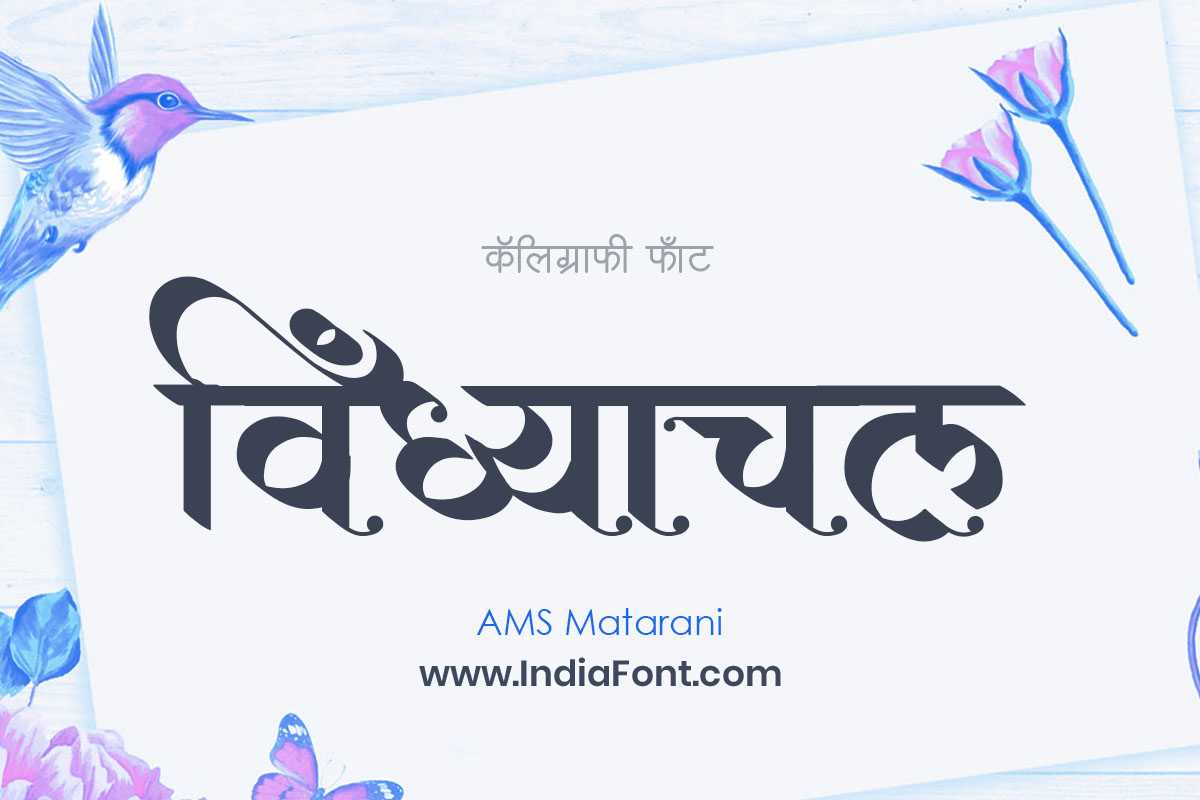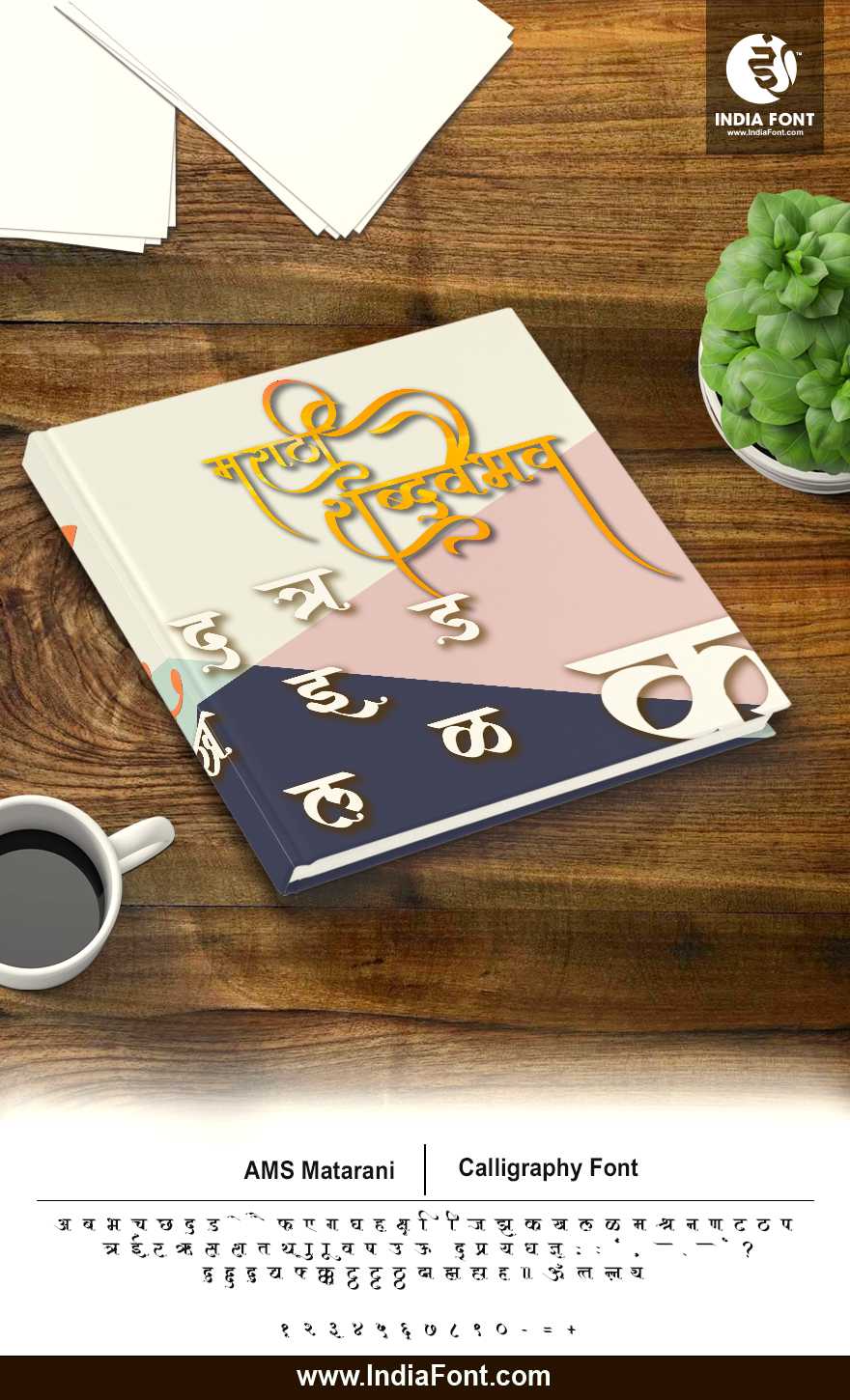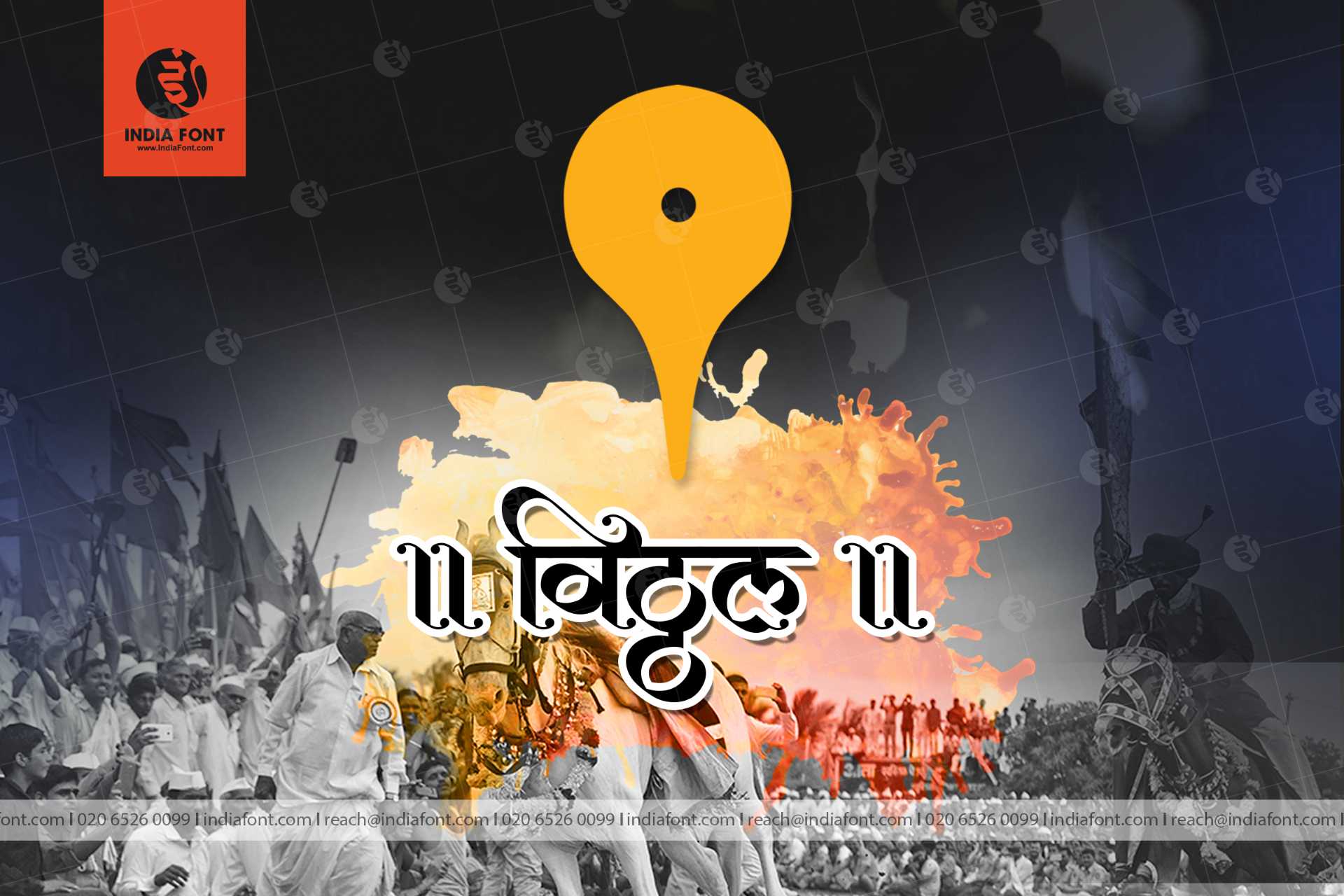
AMS Matarani
Experience the divine beauty of AMS Matarani Font, a Hindi calligraphy font that captures the essence of spiritual grace. This font is ideal for designers seeking a stylish Hindi font, a calligraphy font that reflects devotion, or a font that offers free font download options.
About AMS Matarani Font
Experience the divine beauty of AMS Matarani Font, a Hindi calligraphy font that captures the essence of spiritual grace. This font is ideal for designers seeking a stylish Hindi font, a calligraphy font that reflects devotion, or a font that offers free font download options. This calligraphy font combines elegance with functionality, making it perfect for various design applications.
AMS Matarani is a professionally crafted calligraphy typeface that brings clarity and style to your projects. Designed with attention to detail, it supports hindi and marathi characters flawlessly.
Whether you're working on invitations, logos, posters, or other creative projects, AMS Matarani delivers consistent performance across both digital and print media. This carefully designed typeface ensures readability and visual appeal in all your design work.
About AMS Matarani Typography Style
AMS Matarani is a professionally crafted calligraphy font that exemplifies modern Hindi typography design. This free font is perfect for designers seeking professional branding and logo design projects.
Available in 1 weight and supporting hindi, marathi scripts, AMS Matarani offers exceptional versatility for both digital and print media. Whether you're working on invitations, logos, posters, this carefully designed typeface ensures consistent quality and professional results across all your typography projects.